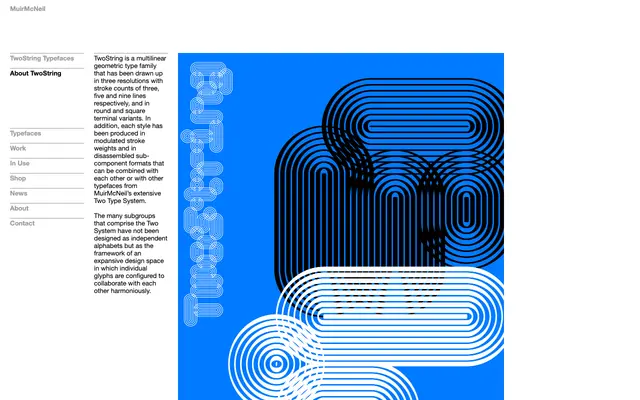
TwoString Typefaces
A modular geometric family built on a system of two-string strokes in three resolutions and two terminal variants, designed to combine with other typefaces across MuirMcNeil's Two Type System.
TwoString uses stroke counts of three, five and nine lines to produce three distinct resolutions of the same underlying letterform structure, each available in round or square terminal variants. Every style also comes in modulated stroke weights and disassembled sub-component formats, allowing designers to mix parts across the system. The family is not conceived as a standalone alphabet but as one layer within MuirMcNeil's broader Two Type System, where glyphs from different sub-families are calibrated to work together harmoniously.
A modular, multilinear geometric display family built on a strict system of strokes and sub-components rather than conventional letterform construction; the system-based, non-independent design language places it firmly in experimental geometric display territory.